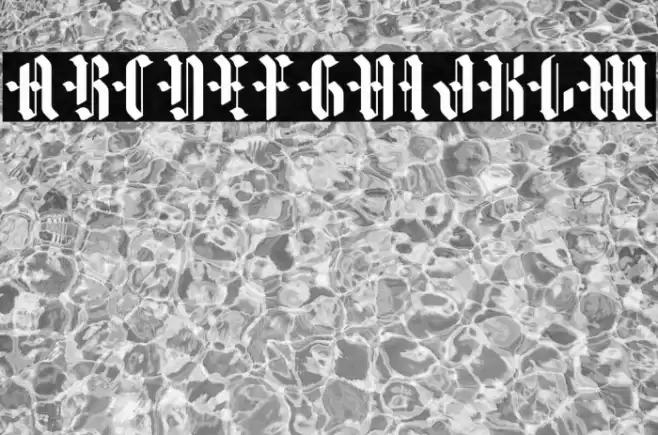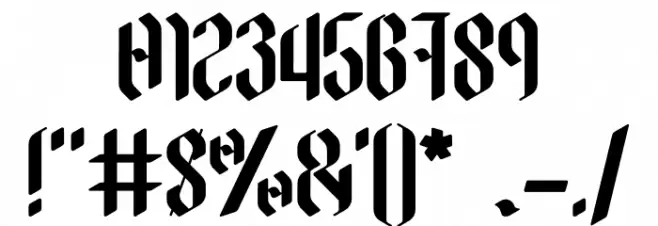
Castillo Font
Castillo Description
This font exhibits a traditional blackletter style, characterized by its intricate and ornate design. The letters are bold and angular, with sharp edges and a distinct medieval aesthetic. The uppercase characters are particularly elaborate, featuring decorative flourishes that enhance their gothic appearance. The lowercase letters maintain the same stylistic elements but are slightly more simplified for readability. Numbers and special characters are consistent with the overall theme, providing a cohesive look. This font is ideal for projects that require a historical or dramatic flair, such as invitations, posters, or branding for themed events.
A bold, ornate blackletter font with a medieval aesthetic from Uncategorized fonts.
- Proposed Projects: Ideal for historical-themed designs, gothic posters, invitations, and branding.
- Overall Style: Vintage
- Use Case: Headlines, Logos, Decorative text